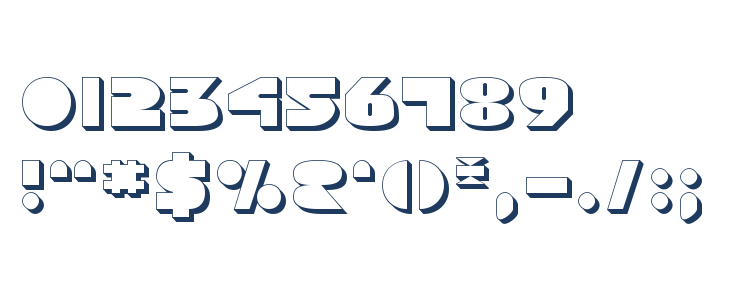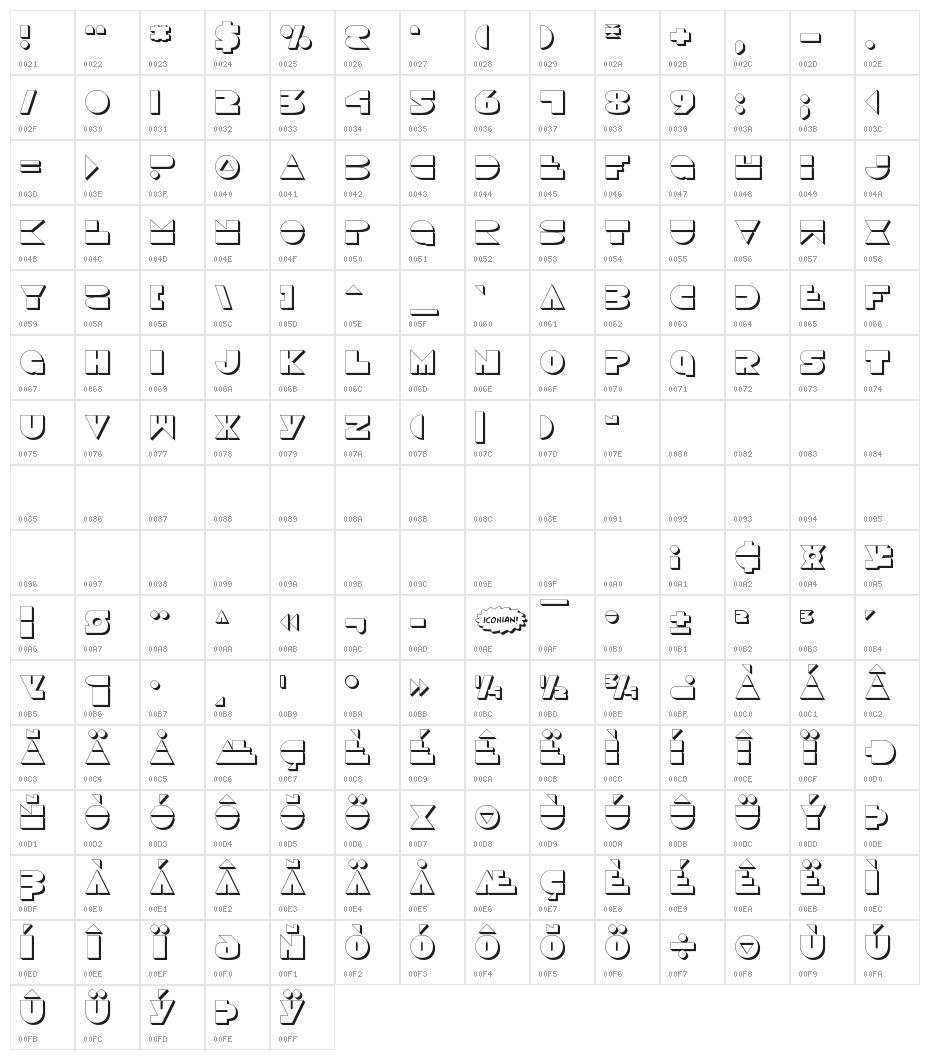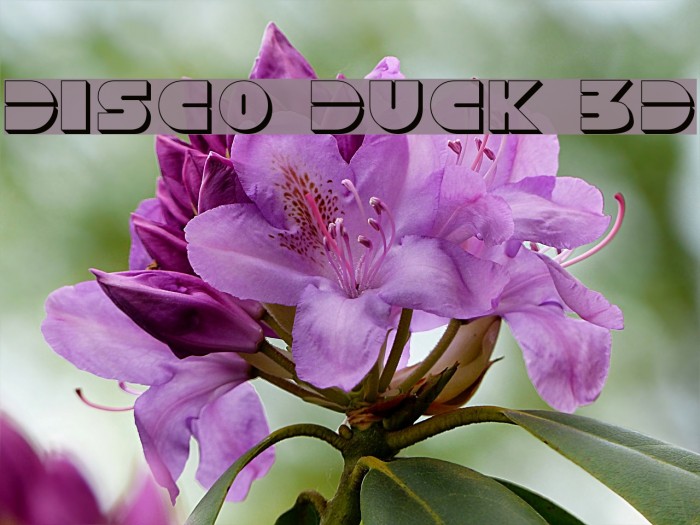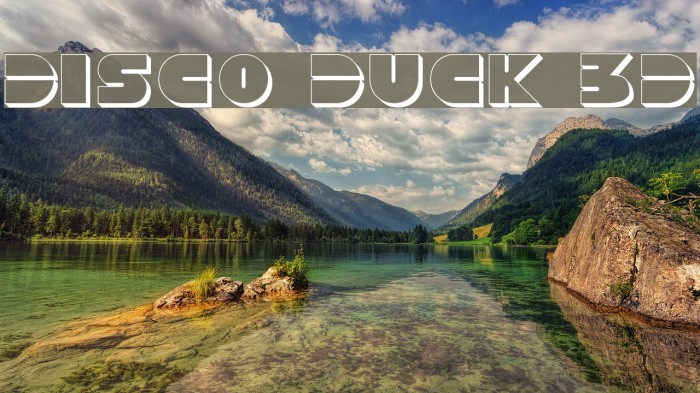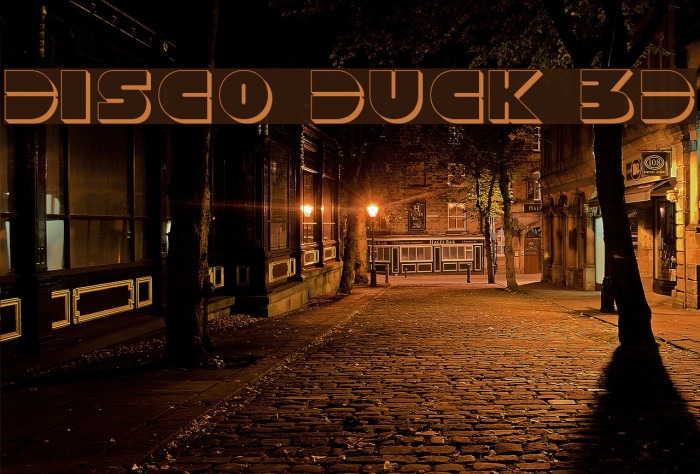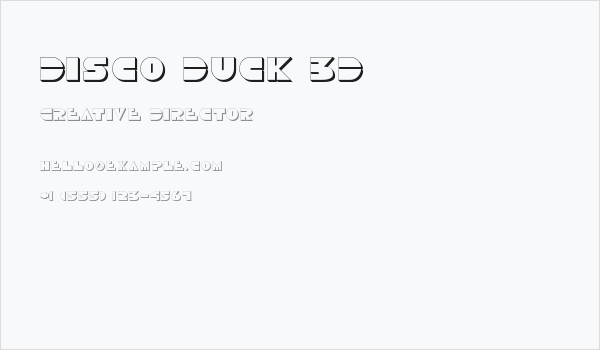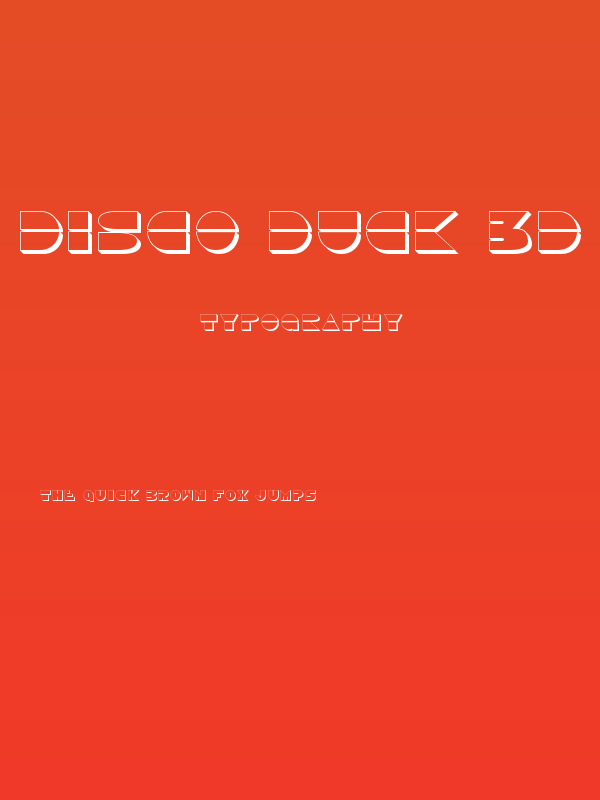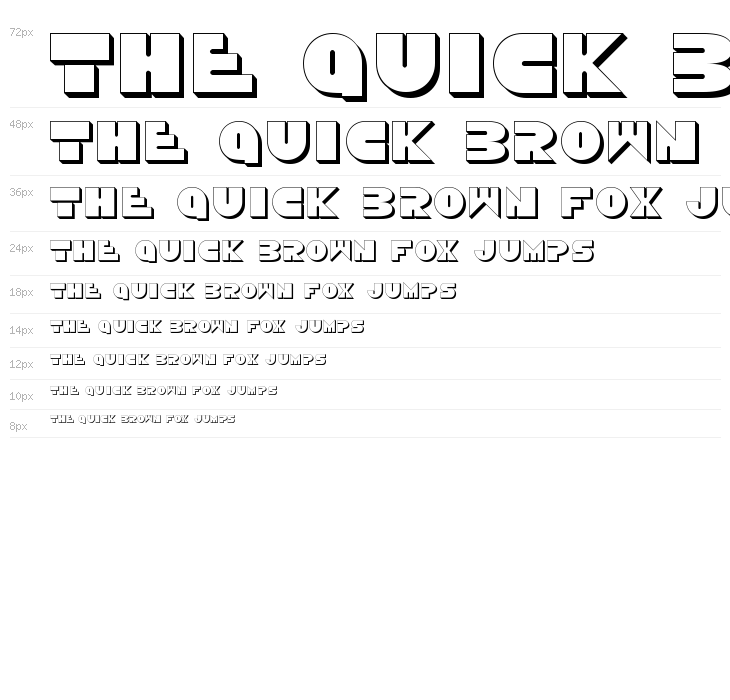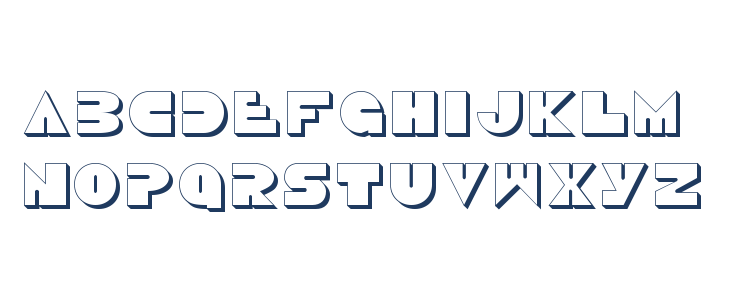
Disco Duck 3D Font
Disco Duck 3D Description
This font features a bold, geometric design with a 3D effect that gives it a unique, eye-catching appearance. The characters are constructed with a combination of straight lines and curves, creating a futuristic and playful aesthetic. The uppercase letters are particularly striking, with some characters incorporating cut-out sections that enhance the three-dimensional look. The numbers and special characters maintain the same bold and dynamic style, making the font versatile for various design needs. Its distinct appearance makes it suitable for projects that require a modern and energetic vibe.
| Proposed Projects | Ideal for posters, logos, video game graphics, and any project needing a modern, dynamic touch. |